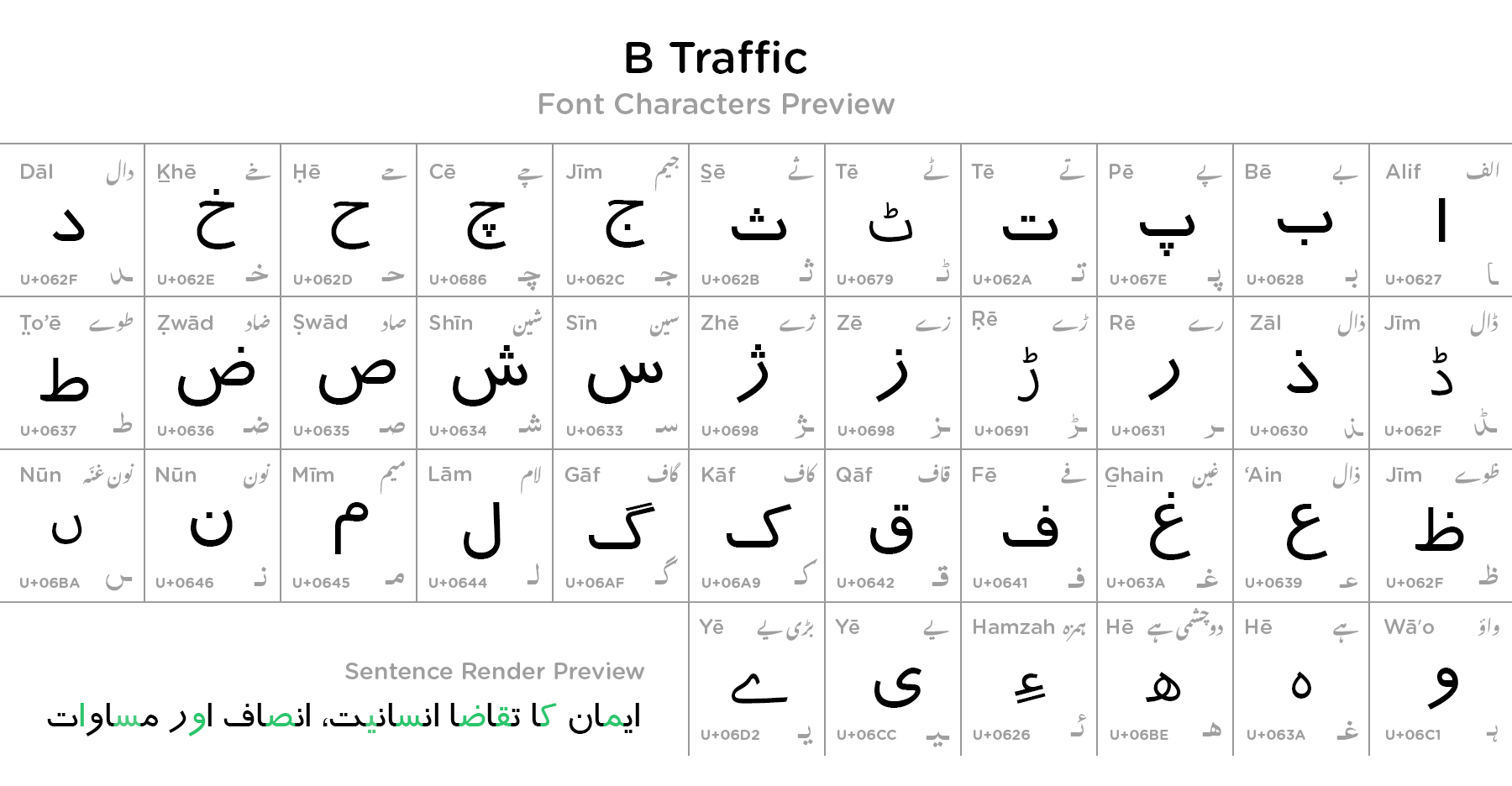
B Traffic Font Family
B Traffic is a bold Persian font designed by Borna Rayaneh with an informal appearance. This font brings friendliness to your design with its handwritten appeal and soft letterforms. With no calligraphic take, this font can be diversely applicable to different design needs where a warm and whimsical feel is needed. One unique factor of this font is a subtle slant in the descenders (part of the letter below the baseline), adding a more relaxed feel. Best suited for both short and long text applications, this font can be used in bold headings, kids’ educational material, social media posts, logos, and branding. However, the availability of only 2 weight limits its practicality for diverse design requirements. Its weights include:
Released in 2017, it features 288 characters and 217 glyphs, catering to various design needs. The font supports multiple languages, including Arabic, Latin, and symbols, enhancing its adaptability. The font has a bold weight with consistent thickness throughout, providing a solid and impactful presence. Its monospaced spacing ensures uniform character alignment, making it highly legible on screens and in small prints. B Traffic supports various Unicode blocks, including Basic Latin, Latin-1 Supplement, Spacing Modifier Letters, Arabic, General Punctuation, Mathematical Operators, Private Use Area, and Arabic Presentation Forms-A and B, ensuring broad compatibility across different platforms.